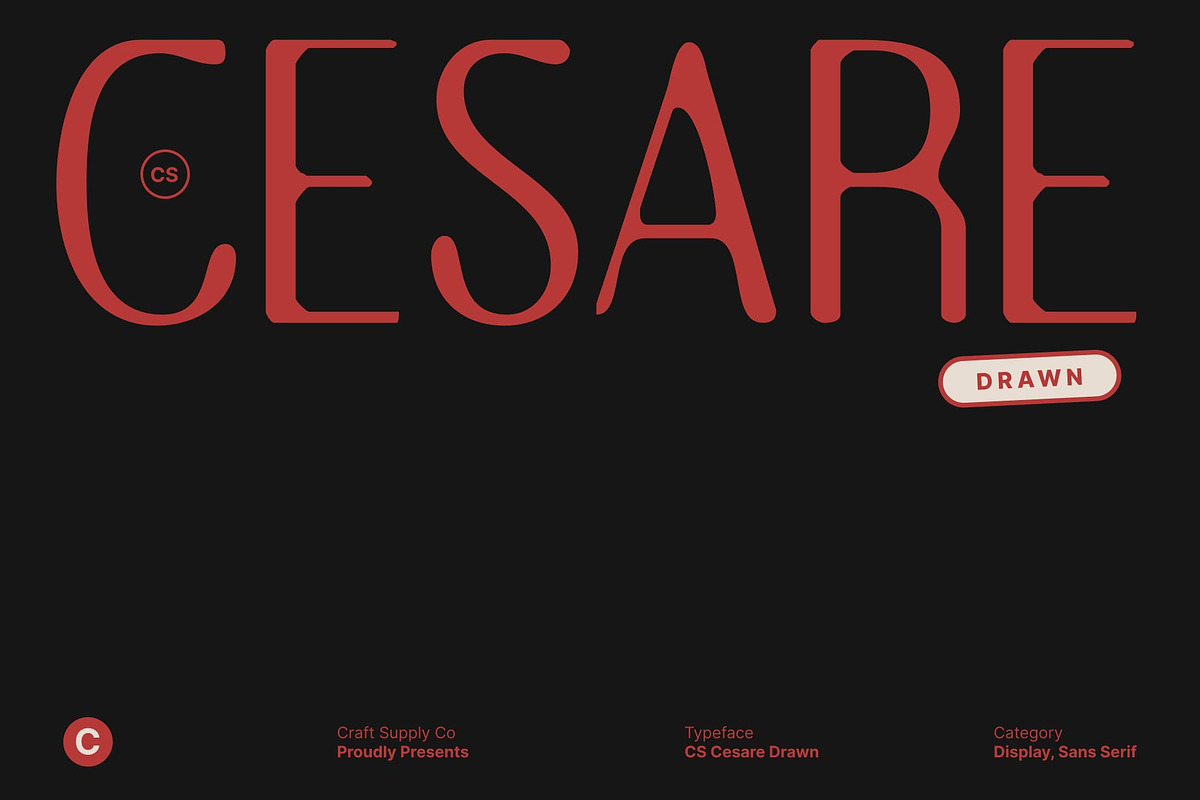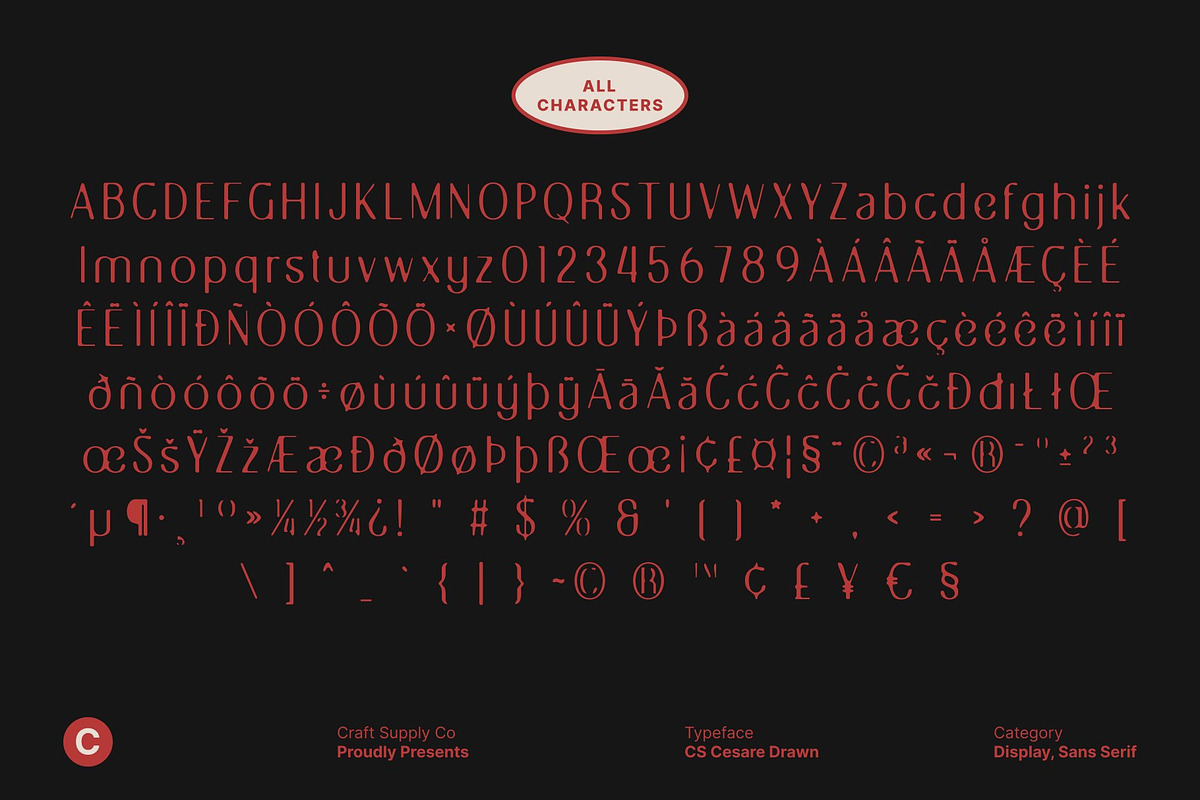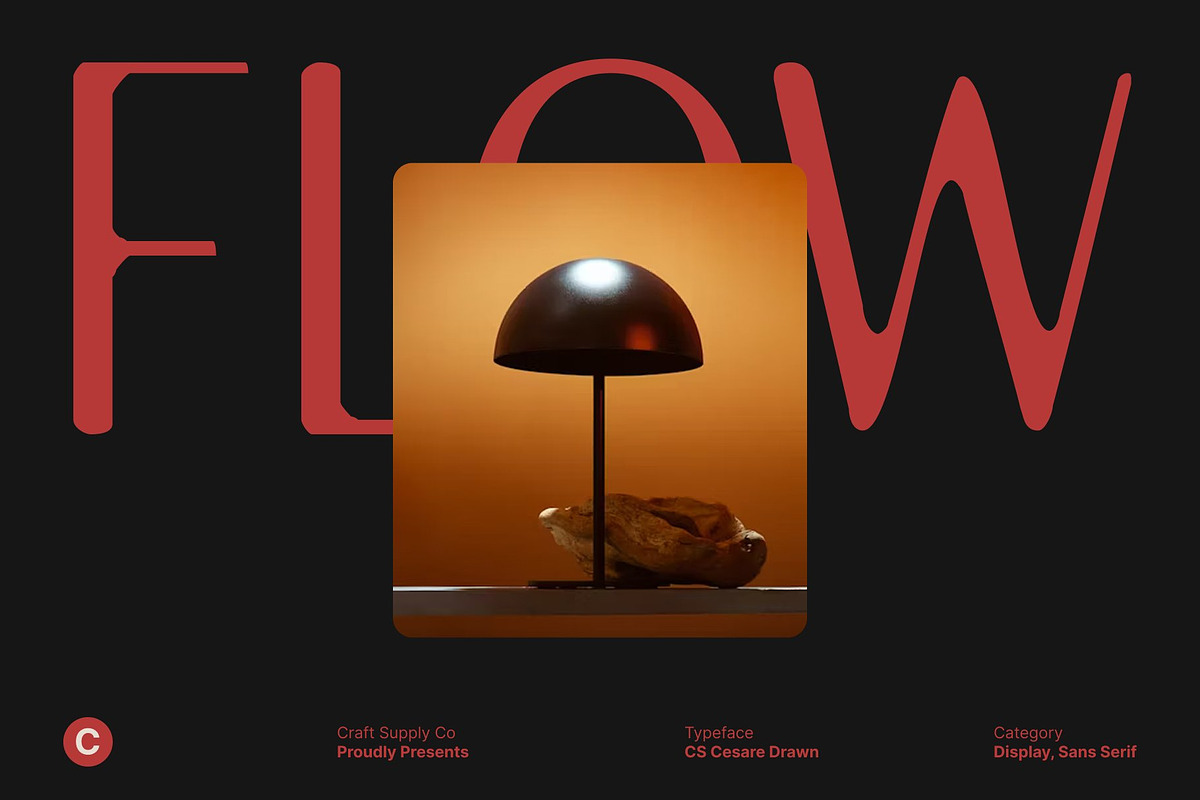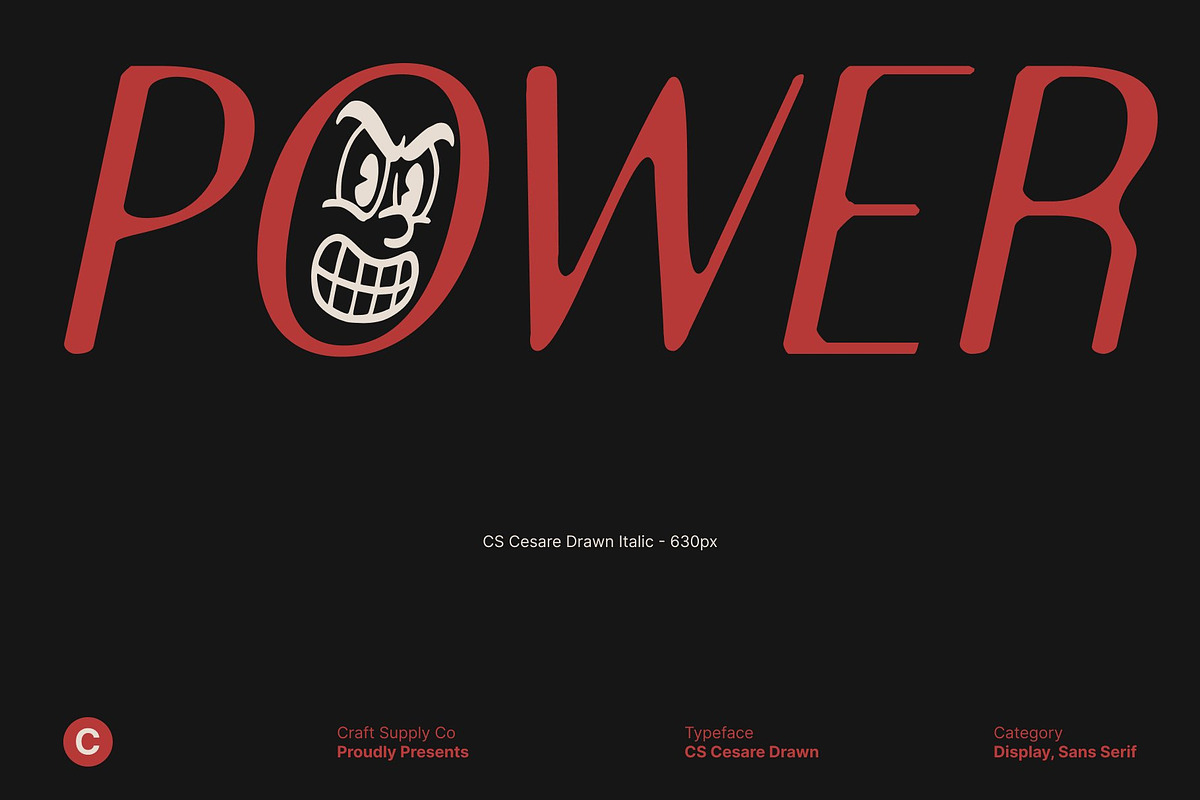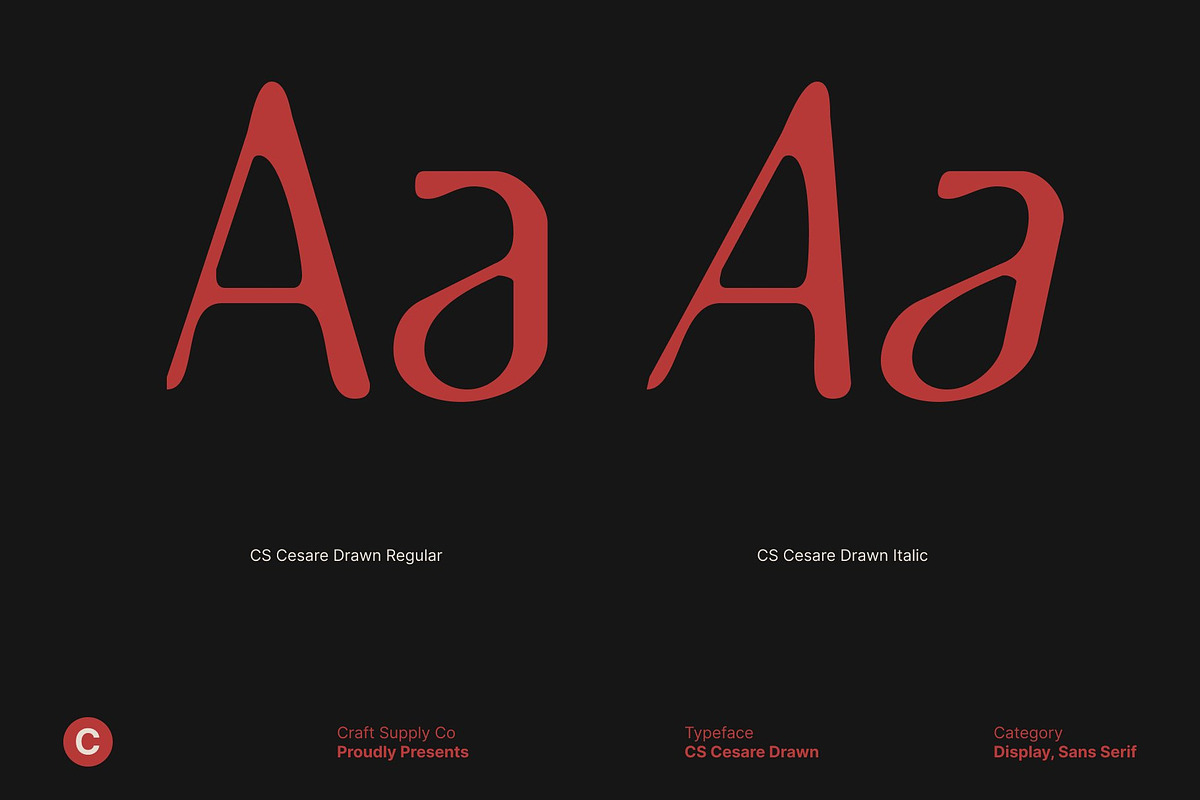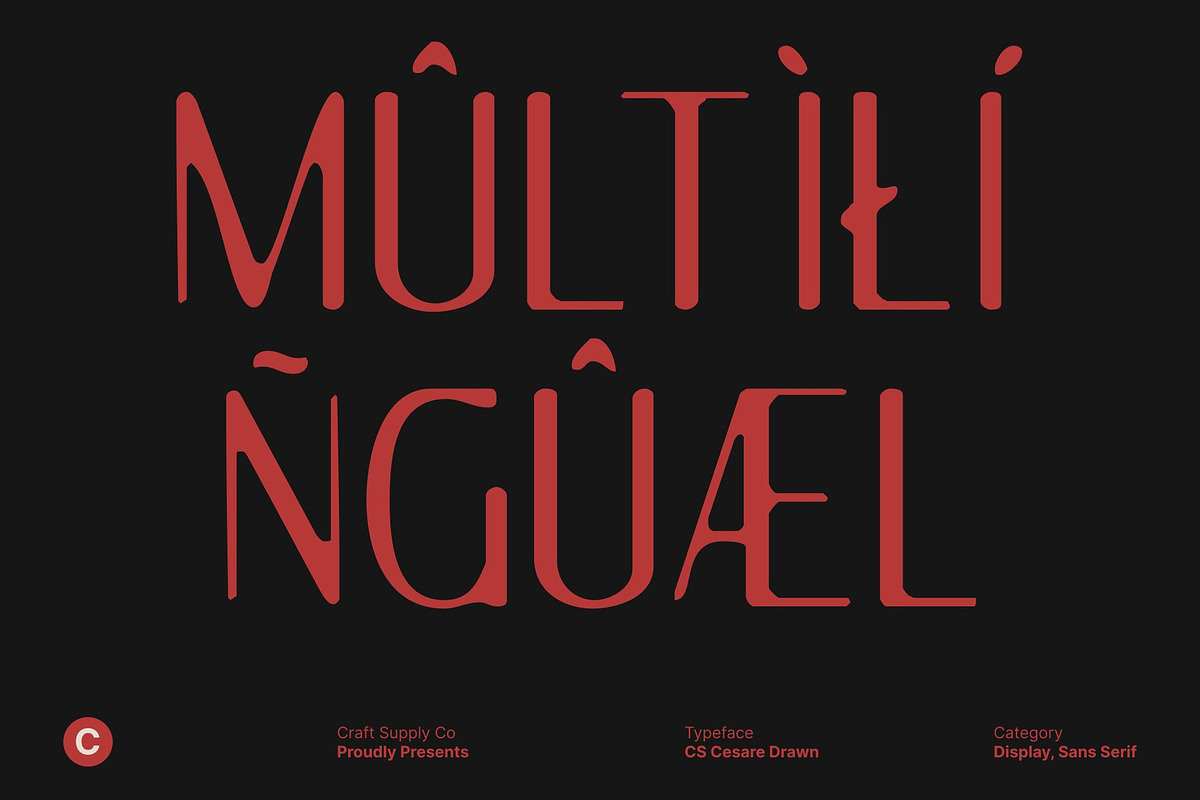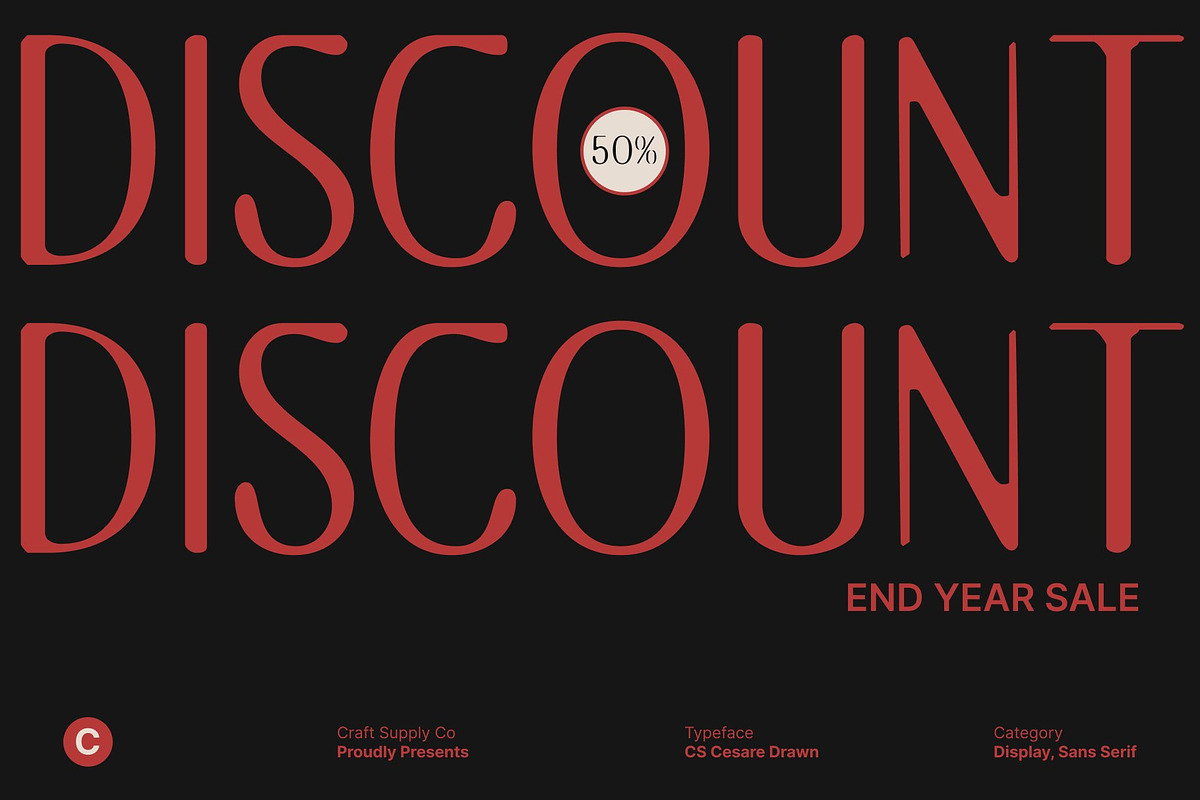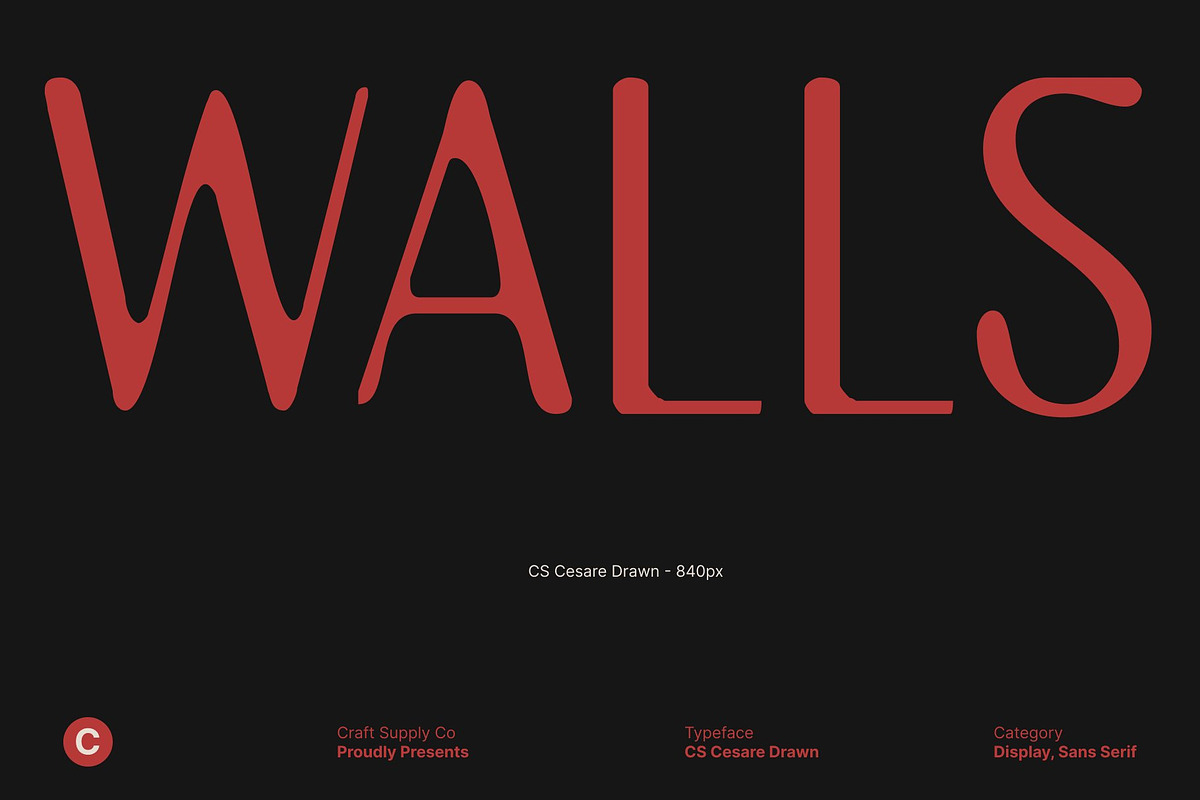
CS Cesare Drawn
CS Cesare Drawn – Minimalist Elegance with Modern Luxury
Clean Modern Sans Serif Font with Refined Character This is a clean, modern sans serif font crafted with a minimalist philosophy and a luxurious sense of refinement. Enhanced with a subtle drawn effect, its precise construction is softened by organic nuances that add warmth and personality. Smooth curves and balanced proportions create an elegant visual tone that feels sophisticated, timeless, and confidently modern.
Minimalist Design with Handcrafted Sophistication The minimalist approach of this font allows its refined details to shine through restraint. Consistent stroke weight, generous spacing, and clean letterforms are complemented by a gentle hand-drawn texture, giving the font a human, artistic touch. This blend of precision and softness creates understated elegance that feels contemporary, tasteful, and quietly expressive.
Refined Structure with Soft Artistic Nuance Designed to perform beautifully across digital and print media, this font maintains excellent readability while introducing a relaxed, handcrafted feel. The drawn finish softens its modern geometry, making it ideal for professional and fashion-forward applications that seek clarity without coldness. It communicates trust, exclusivity, and modern luxury with subtle character.
Perfect for Luxury Brands, Logos, and Web Design This font is ideal for luxury branding, modern logos, fashion identities, packaging, and clean professional websites. Its elegant sans serif form paired with a delicate drawn texture enhances brand presence with sophistication, warmth, and modern artistic appeal.
- CS Cesare Drawn Regular
- CS Cesare Drawn Italic